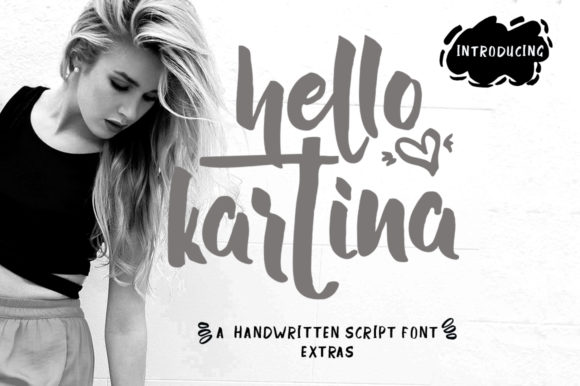
Hello Kartina Font
Introducing Hello Kartina Font, a charismatic and aesthetically pleasing script font, meticulously crafted by madjack.font. Experience the allure of handwritten charm with this font, a perfect choice for infusing a touch of whimsy and authenticity into your creative projects.
Hello Kartina's essence is embodied in its organic and flowing strokes, reminiscent of a heartfelt letter penned by a friend. Its script style exudes a personal and captivating quality, drawing the reader into your words. The font's elegant curves and playful flourishes add a touch of enchantment to any design.
Unleash your creativity with Hello Kartina, a versatile font that effortlessly adapts to a multitude of design endeavors. Design enchanting wedding invitations that reflect the joyous spirit of the occasion, or craft heartfelt stationary art that speaks volumes about your sentiments. Make your social media posts stand out with eye-catching graphics and captivating typography. Extend heartfelt greetings with charming greeting cards, spreading warmth and cheer to loved ones.
With Hello Kartina, the possibilities are boundless. Its unique style lends itself seamlessly to branding projects, adding a distinctive touch to logos, packaging, and marketing materials. Create captivating posters and flyers that demand attention, leaving a lasting impression on your audience. Experiment with Hello Kartina in digital art, bringing your imaginative visions to life with its enchanting strokes.
Hello Kartina is more than just a font; it's an experience. Immerse yourself in its charm and watch your creative ideas flourish. Its user-friendly nature makes it accessible to designers of all levels, allowing you to effortlessly incorporate its magic into your projects.